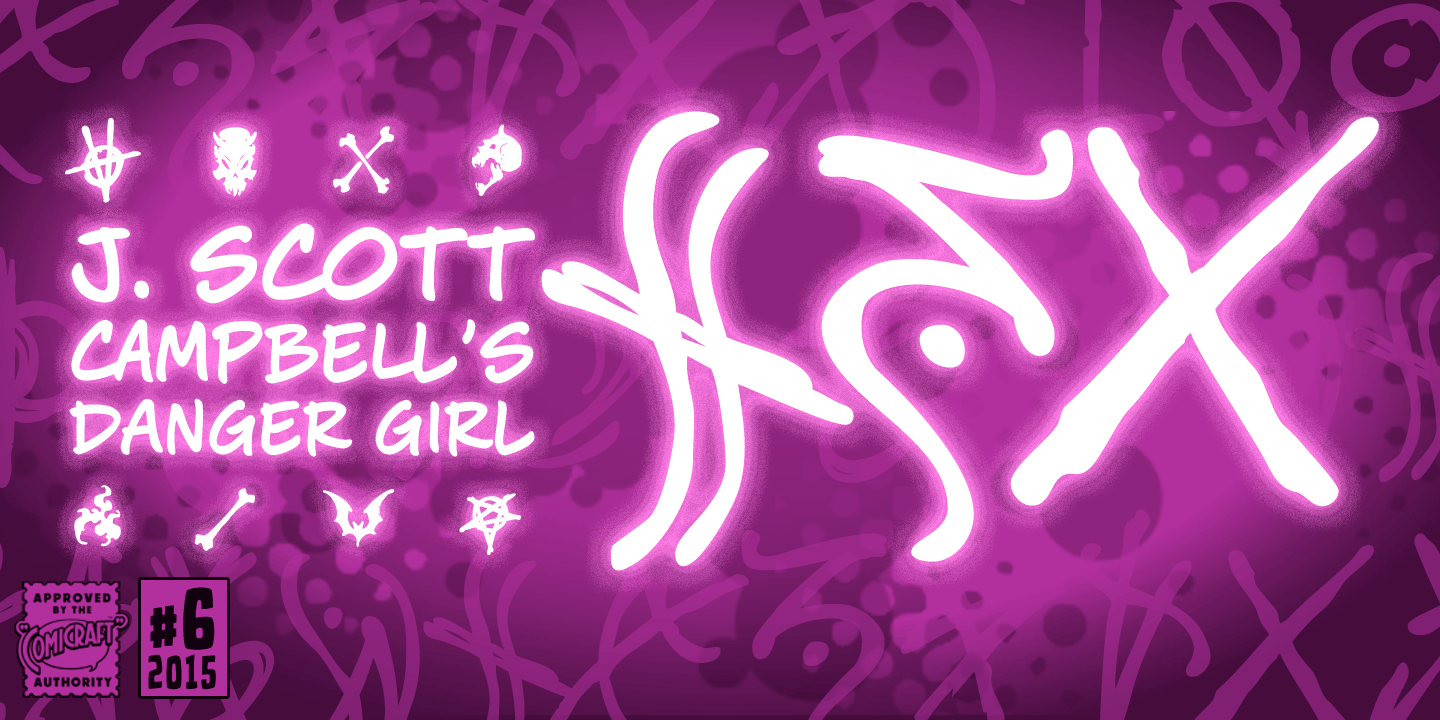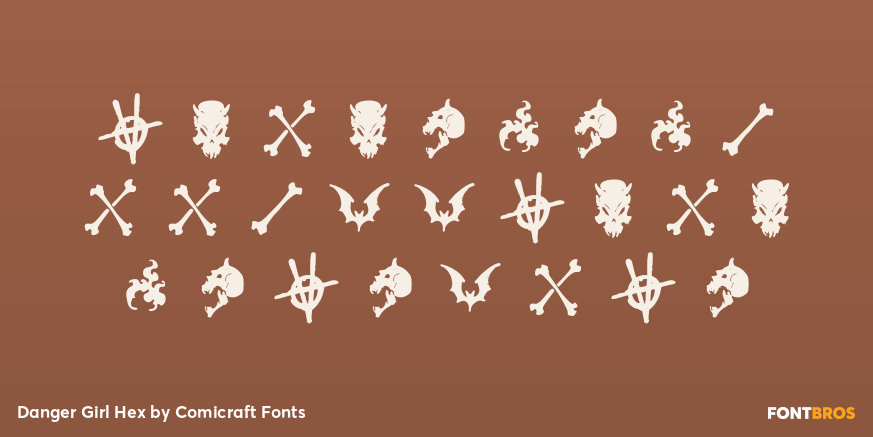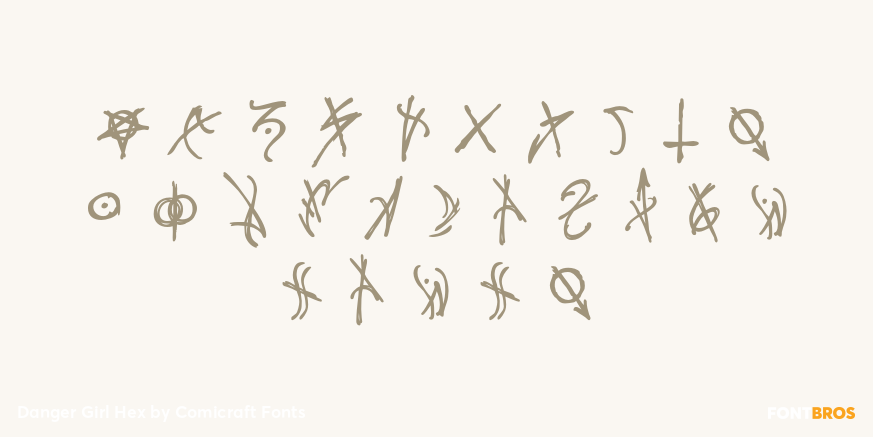
Danger Girl Hex
Font Family by Comicraft Fonts
Ancient Evil! Nazi Spies! High Adventure! Spandex! As the sun sets and the sky fades from 100Y, 50M to 100Y, J. Scott Campbell's Warm and Friendly Display Letterforms are already receding over the far horizon in a Dakota, trailing a long broken red line all the way from Venice to Cairo. This font really does not belong in a museum!